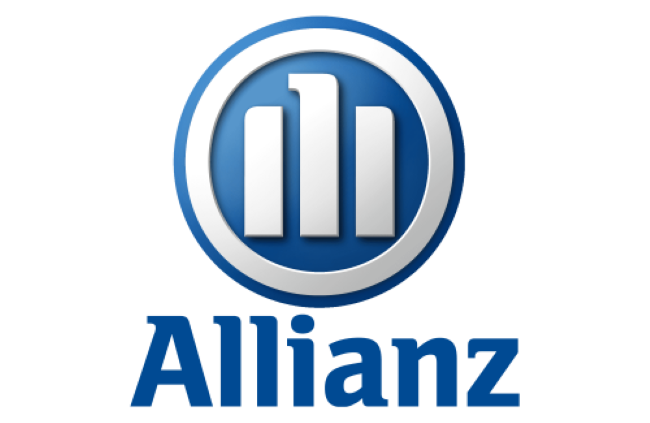
Allianz Font
Allianz font delivers exactly what a company managing trillions in assets for customers in over 70 countries needs its typography to do — communicate stability, approachability, and global trustworthiness without a single wasted stroke. The logo typeface is a clean, rounded sans-serif with balanced proportions that manage the rare trick of feeling simultaneously professional and warm, reflecting Allianz’s positioning as an institution that handles serious risk while remaining genuinely customer-facing. The freely one is available Allianz Alternative provides a closely comparable open weight and rounded character for design exploration.
The Allianz typographic approach sits in a productive middle ground between the cold authority of pure institutional sans-serifs and the excessive friendliness of consumer brand fonts — a balance that is genuinely difficult to achieve and enormously useful when you do. For designers working on insurance and financial services identity, pan-European corporate branding, multinational B2C service brands, healthcare system communications, or any project where the brief requires that the typography make people feel both protected and respected, this is a highly instructive typographic model.